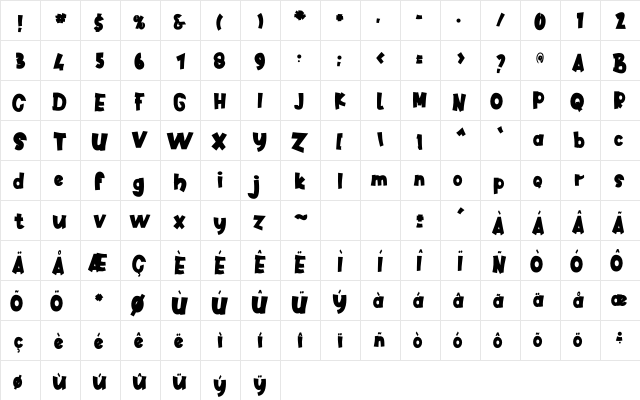
Amazing Kids Regular
Design Context for Amazing Kids Typeface
Amazing Kids trades formality for fun, with bouncy, characterful letterforms that bring warmth and energy to any project.
Font Pairing: Pairs well with a rounded or humanist sans for body copy, maintaining the friendly tone without relying on Amazing Kids to carry extended reading.
Pro Tip: Avoid using Amazing Kids for long passages of text — it works best for headlines, labels, and short calls to action.